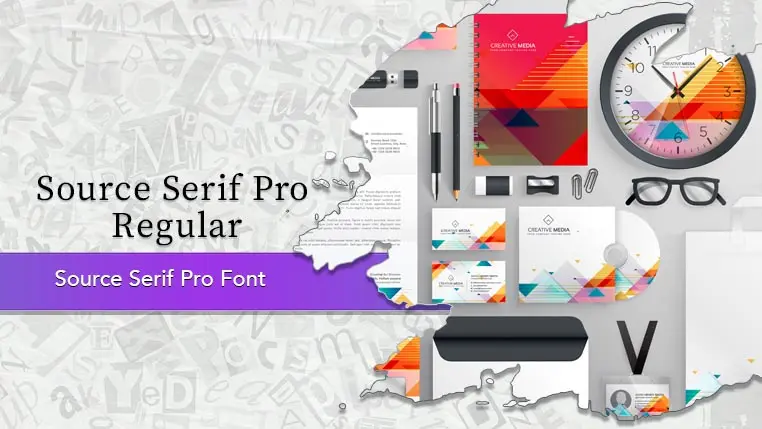
The Source Serif Pro font family may be ideal for you if you enjoy working on an artistic design project. The lively, expressive look of this typeface, which was created by Frank Grießhammer, makes it ideal for Body Text for Print and Digital, Editorial Design, Branding and Corporate Identity, Websites and UI/UX Design and E-books and Digital Reading Platforms. Its formal yet clear style makes it well-suited for academic publications, theses, and research documents. and other light-hearted visual projects.
Regular, Semibold, Bold are the three primary font styles of the Source Serif Pro font family. You may build dynamic, visually appealing text layouts with the distinct flair that each style offers. With crisp, readable lines and a relaxed tone.